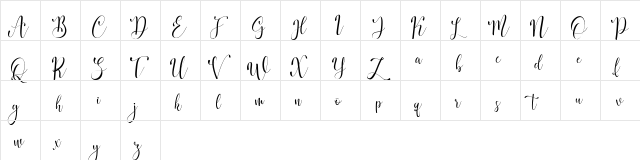
Brighlon Regular
Design Context for Brighlon Typeface
Brighlon is a composed and adaptable typeface that performs quietly and consistently across a wide range of design contexts.